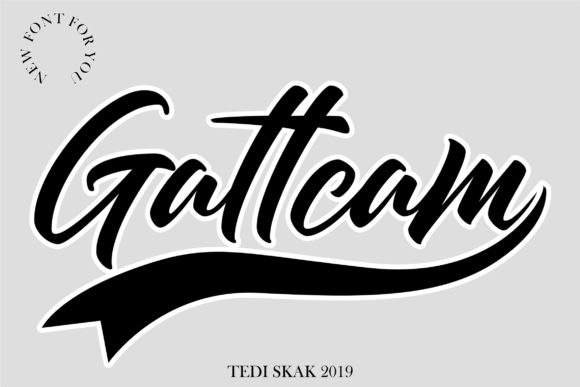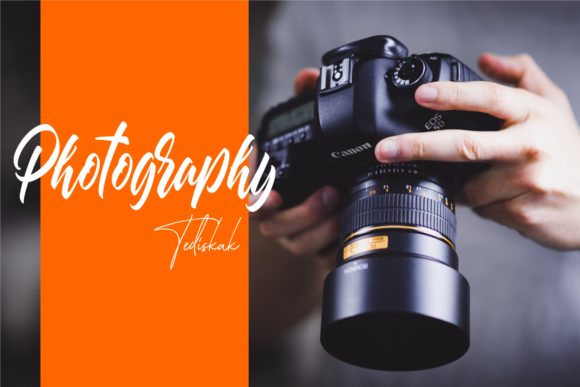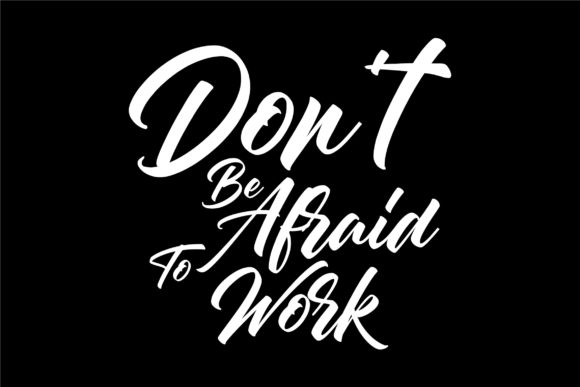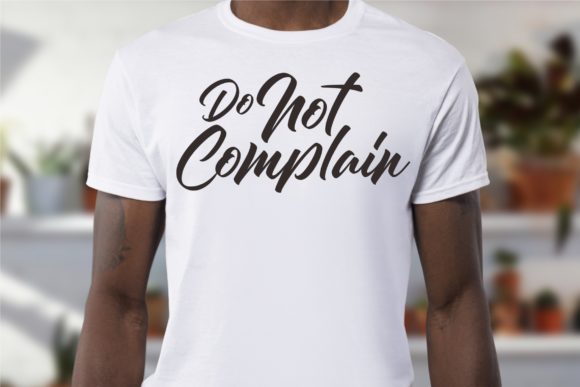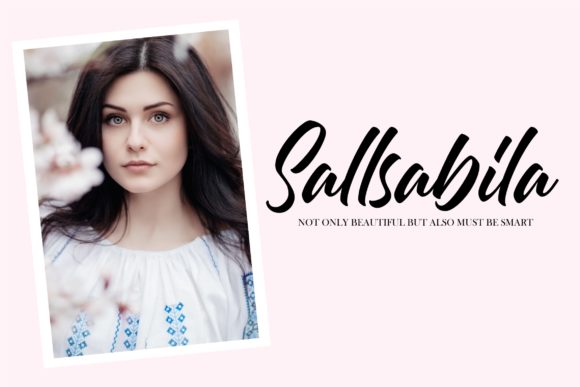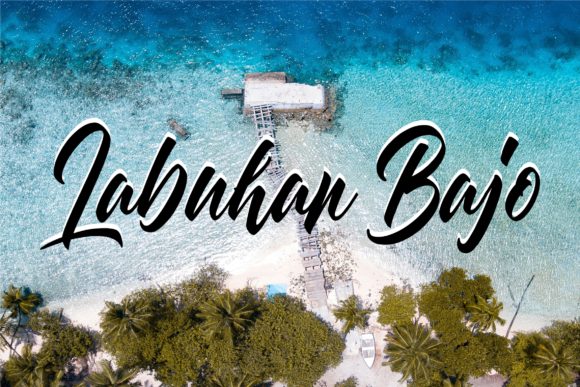
Gattcam Font: The Ultimate Design Hack for Bold and Edgy Projects
Are you tired of using the same old fonts in your design projects? Do you want to add a stunning twist to your creations and make them stand out from the crowd? Look no further than Gattcam Font, a bold and cool font with a unique feel that’s sure to take your designs to the next level.
What is Gattcam Font?
Gattcam Font is a modern and edgy font that’s perfect for designers and crafters who want to add a touch of boldness to their projects. With its unique feel and sleek design, Gattcam Font is sure to make a statement and grab attention. Whether you’re working on a logo, brochure, or website, Gattcam Font is the perfect choice for anyone who wants to create a lasting impression.
Key Features of Gattcam Font
- Bold and Edgy Design: Gattcam Font has a bold and edgy design that’s perfect for creating striking headlines and titles.
- Unique Feel: Gattcam Font has a unique feel that’s unlike any other font out there. Its sleek and modern design makes it perfect for creating designs that stand out from the crowd.
- High-Quality Vectors: Gattcam Font comes with high-quality vectors that ensure crisp and clear text, even at large sizes.
- Use it for Headlines: Gattcam Font is perfect for creating bold and eye-catching headlines. Use it to grab attention and draw the reader in.
- Experiment with Colors: Gattcam Font looks great in a variety of colors. Experiment with different colors and gradients to find the perfect look for your design.
- Mix it with Other Fonts: Gattcam Font can be paired with other fonts to create a unique and interesting design. Try pairing it with a sans-serif font for a bold and modern look.
Benefits of Using Gattcam Font
There are many benefits to using Gattcam Font in your design projects. Here are a few:
- Adds a Touch of Boldness: Gattcam Font adds a touch of boldness to any design project. Its unique feel and sleek design make it perfect for creating striking headlines and titles.
- Versatile: Gattcam Font is versatile and can be used in a variety of design projects, from logos and brochures to websites and social media graphics.
- Easy to Read: Despite its bold design, Gattcam Font is easy to read, even at small sizes.
Who Can Use Gattcam Font?
Gattcam Font is perfect for anyone who wants to add a touch of boldness to their design projects. Here are a few examples of designers and crafters who can use Gattcam Font:
- Graphic Designers: Graphic designers can use Gattcam Font to create striking logos, brochures, and other marketing materials.
- Web Designers: Web designers can use Gattcam Font to create bold and eye-catching headlines and titles for websites and social media graphics.
- Crafters: Crafters can use Gattcam Font to create unique and personalized gifts, such as t-shirts, mugs, and signs.